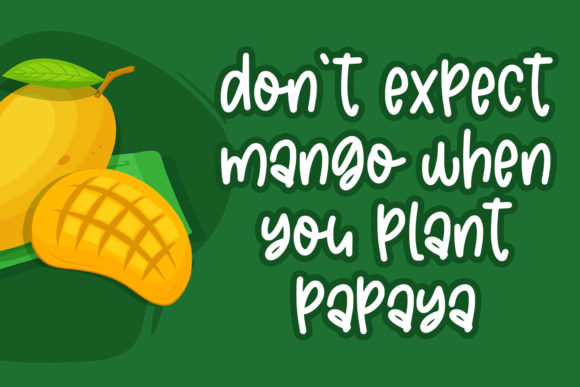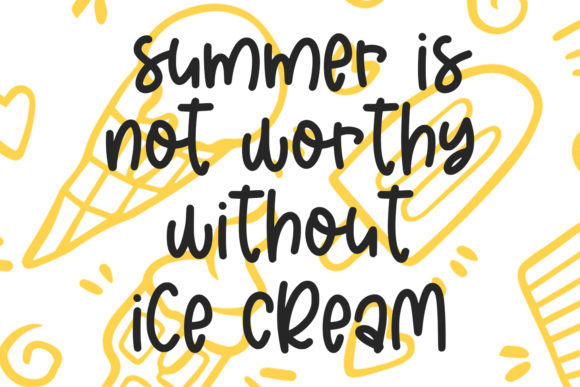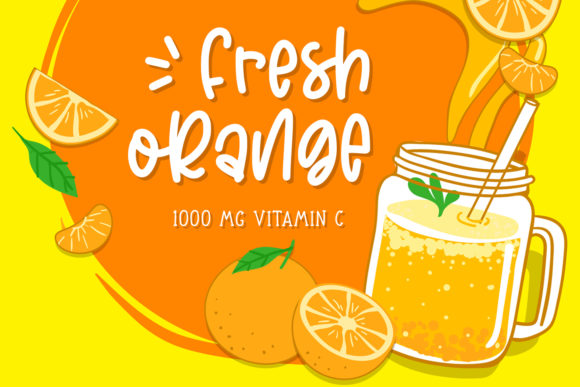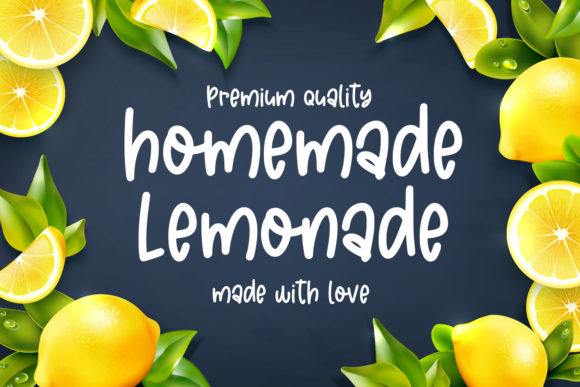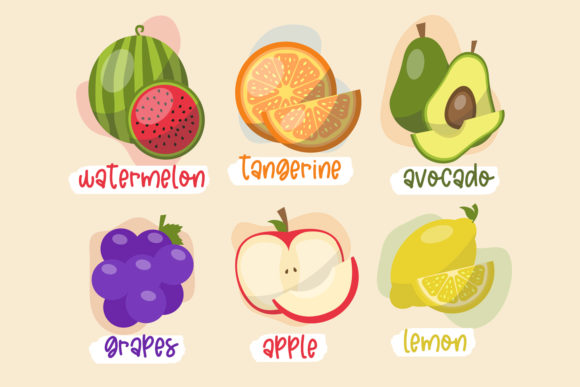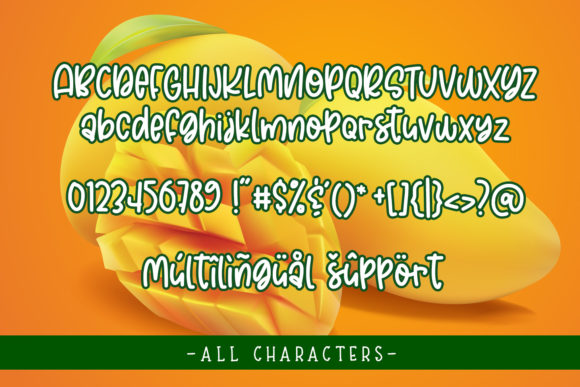
Mango Juicy Font
About Mango Juicy Font
Mango Juicy feels modern and refreshing! Use this amazing handwritten font to add a special touch to your summer crafting projects!